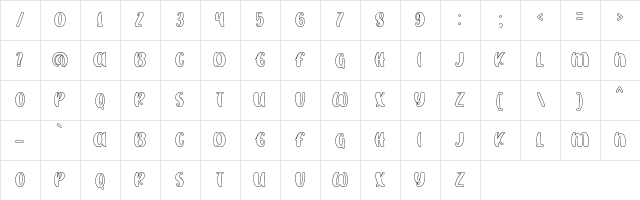
SWEET DUCK Personal Use Only Outline
Design Context for SWEET DUCK Personal Use Only Typeface
SWEET DUCK Personal Use Only is built around its visual character rather than neutral utility — its distinctive forms are designed to make an impression at display sizes.
Font Pairing: Pair with a clean neutral sans-serif for body copy to let SWEET DUCK Personal Use Only's character lead without overwhelming the composition.
Pro Tip: Use SWEET DUCK Personal Use Only exclusively at display sizes — it was designed to be seen, not read at length. Let a neutral companion handle body copy.